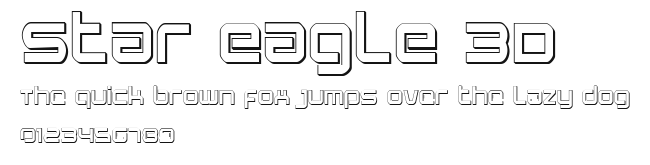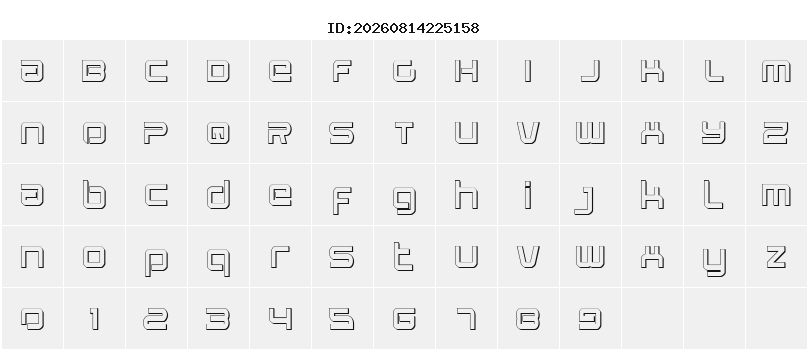
Star Eagle 3D Preview
• Font Name: Star Eagle 3D
• Full Font Name: Star Eagle 3D Regular
About Star Eagle 3D.ttf
Star Eagle 3D.ttf is a modern, elegant sans-serif font designed for ultimate readability and visual harmony. Perfect for branding, headlines, web design, and print materials.